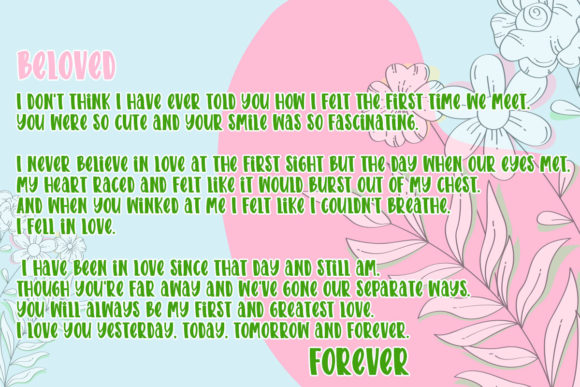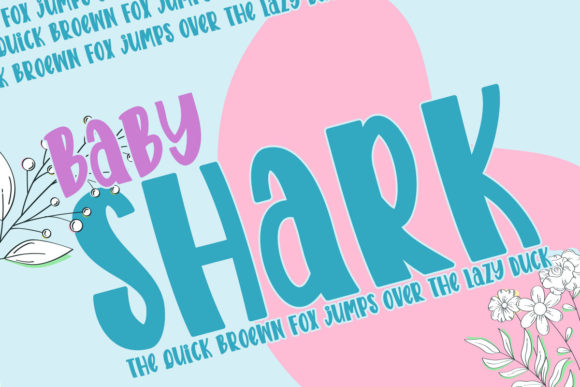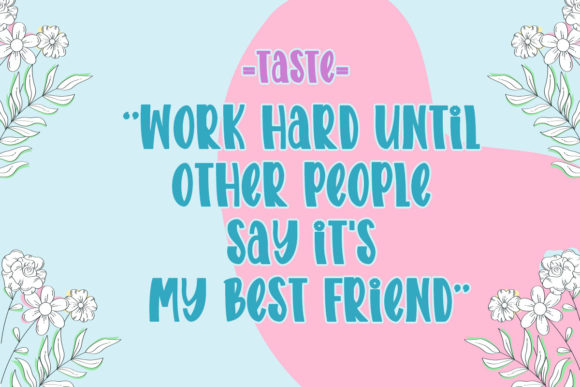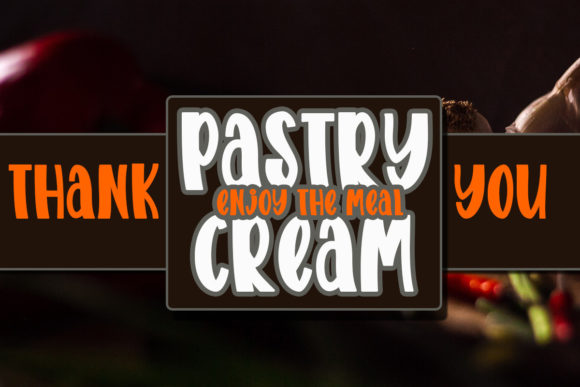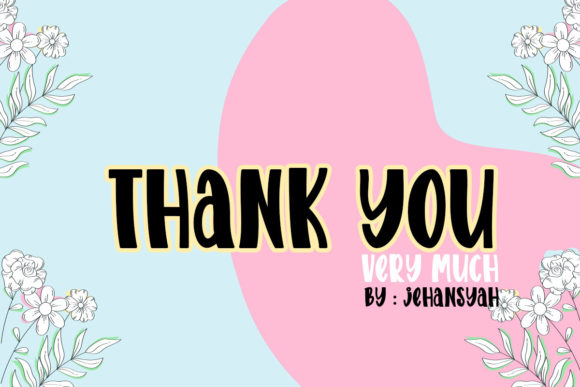
Introducing Body Cream Font: The Ultimate Choice for Cute and Playful Designs
Are you tired of using the same old fonts for your designs? Do you want to add a touch of cuteness and uniqueness to your creations? Look no further than Body Cream Font, a cool and bouncy display font that’s perfect for designers and crafters who want to take their work to the next level.
What Makes Body Cream Font So Special?
Body Cream Font is a one-of-a-kind font that’s designed to bring a smile to your face. Its unique style is characterized by its bouncy and playful appearance, making it perfect for designs that require a cute and youthful look. Whether you’re working on a logo, a poster, or a social media graphic, Body Cream Font is sure to add a touch of personality to your design.
Endless Possibilities with Body Cream Font
One of the best things about Body Cream Font is its versatility. It’s suitable for a wide range of designs, from playful and fun to elegant and sophisticated. Here are just a few ideas to get you started:
- Branding and Logo Design: Use Body Cream Font to create a unique and memorable logo for your business or brand.
- Social Media Graphics: Add a touch of cuteness to your social media graphics, such as Instagram posts, Facebook covers, and Twitter headers.
- Posters and Flyers: Create eye-catching posters and flyers that showcase your products or services in a fun and playful way.
- Crafting and DIY Projects: Use Body Cream Font to add a personal touch to your crafting and DIY projects, such as handmade cards, gift tags, and scrapbook pages.
Why Choose Body Cream Font?
So why choose Body Cream Font over other fonts? Here are just a few reasons:
- Unique Style: Body Cream Font has a one-of-a-kind style that’s sure to set your designs apart from the crowd.
- Ease of Use: Body Cream Font is easy to read and use, making it perfect for designs that require a clear and concise message.
- Customization: Body Cream Font can be customized to fit your design needs, allowing you to adjust the size, color, and style to suit your preferences.
Tips for Using Body Cream Font
Here are a few tips for using Body Cream Font in your designs:
- Pair it with Other Fonts: Body Cream Font looks great when paired with other fonts, such as sans-serif fonts or script fonts.
- Use it in Moderation: While Body Cream Font is cute and playful, it’s best to use it in moderation to avoid overwhelming your design.
- Experiment with Colors: Body Cream Font looks great in a variety of colors, so don’t be afraid to experiment and find the perfect hue for your design.
Body Cream Font is a unique and versatile font that’s perfect for designers and crafters who want to add a touch of cuteness and playfulness to their designs. With its bouncy and youthful appearance, Body Cream Font is sure to bring a smile to your face and set your designs apart from the crowd. So why wait? Download Body Cream Font today and explore its endless possibilities!